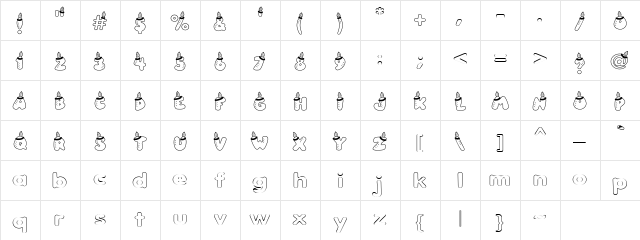
LD Brave Regular Font Preview
LD Brave Regular
Design Context for LD Brave Typeface
LD Brave is a composed and adaptable typeface that performs quietly and consistently across a wide range of design contexts.